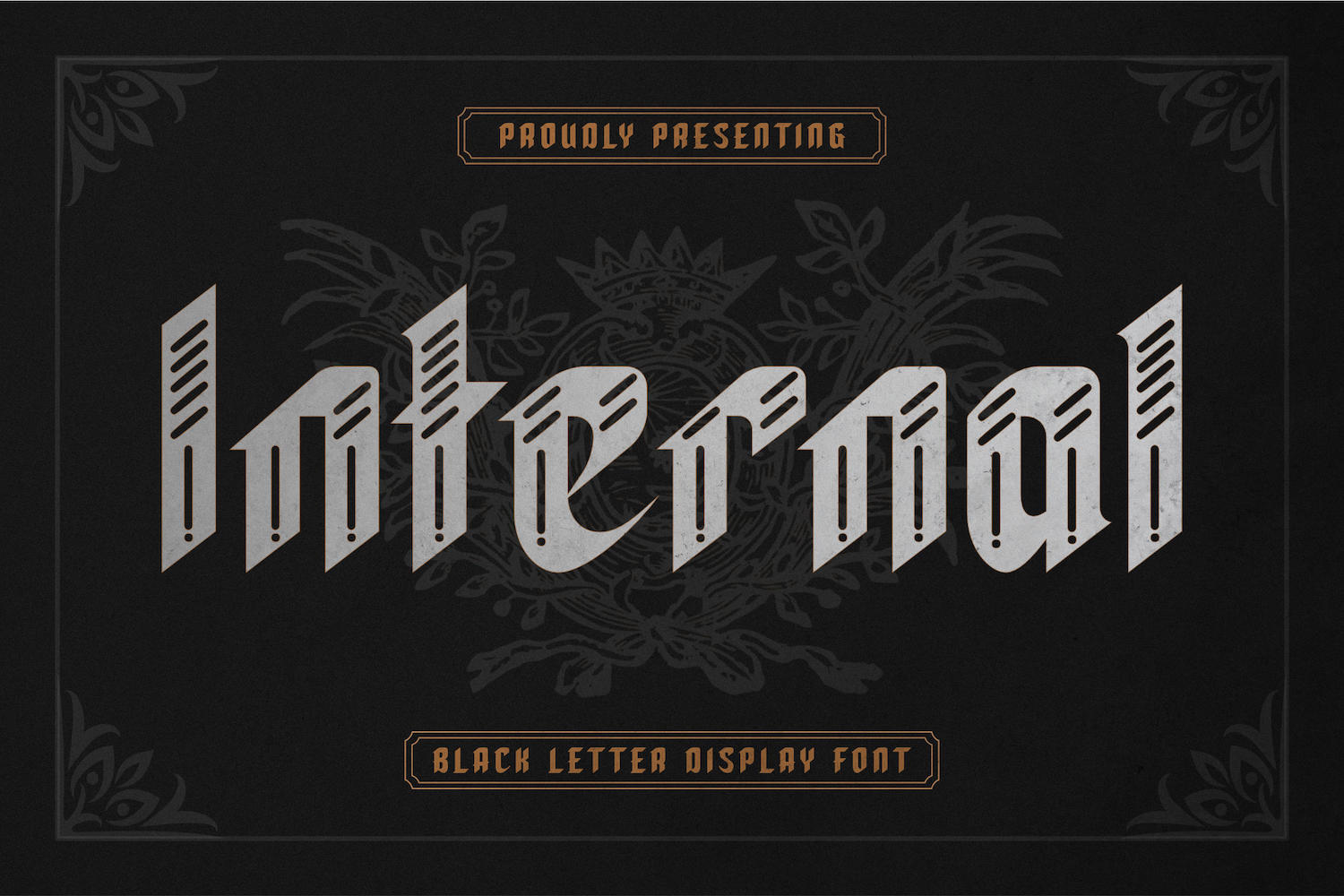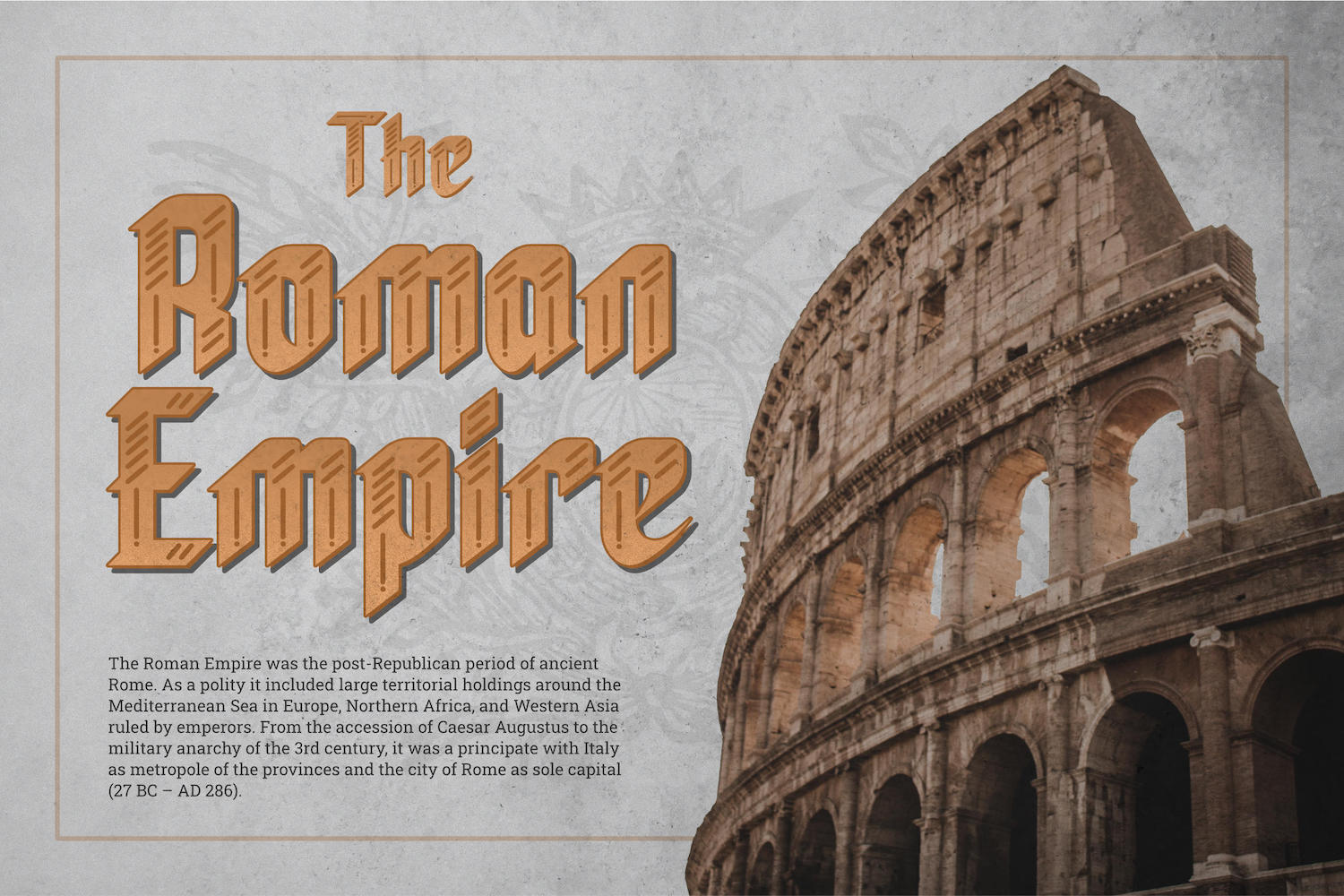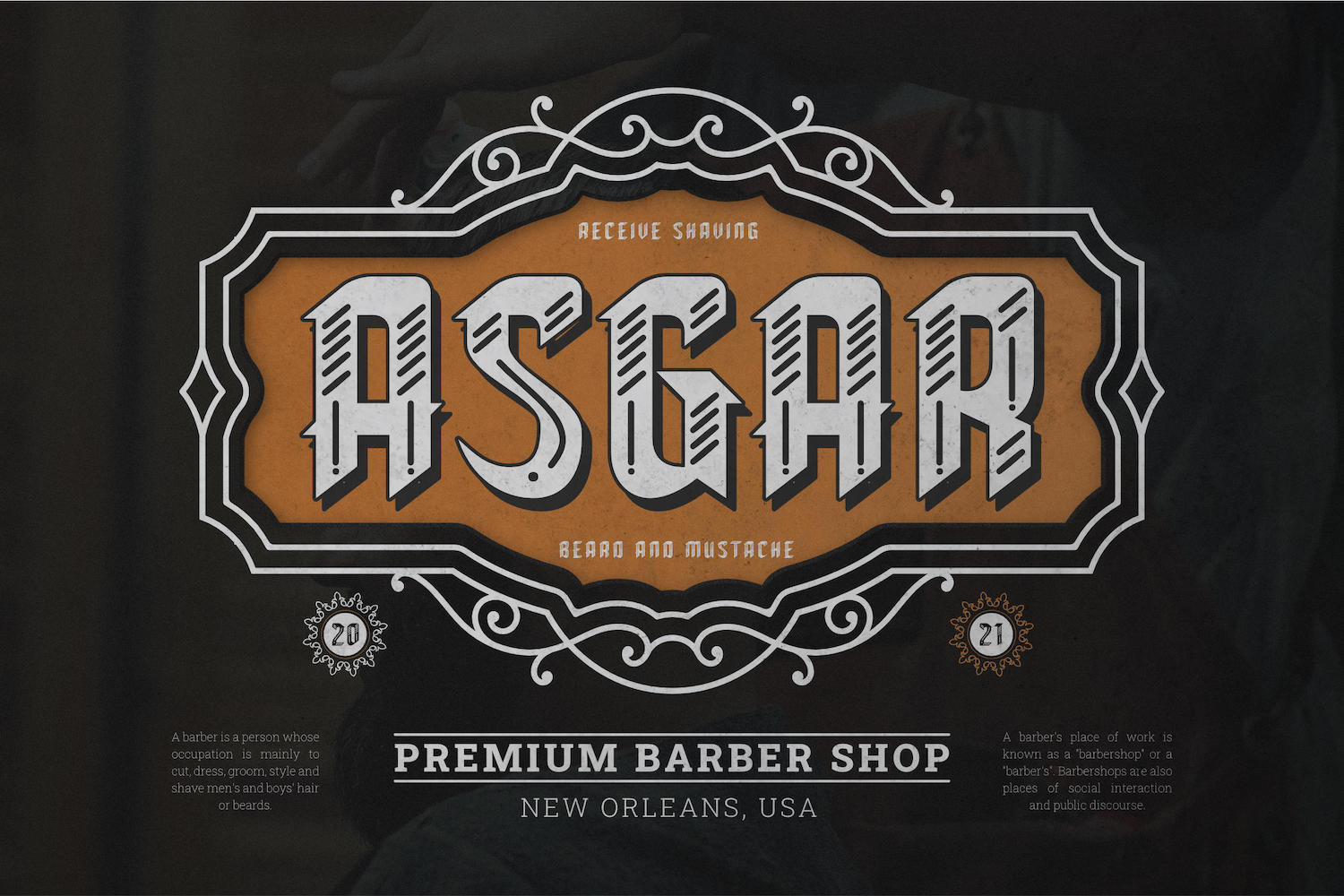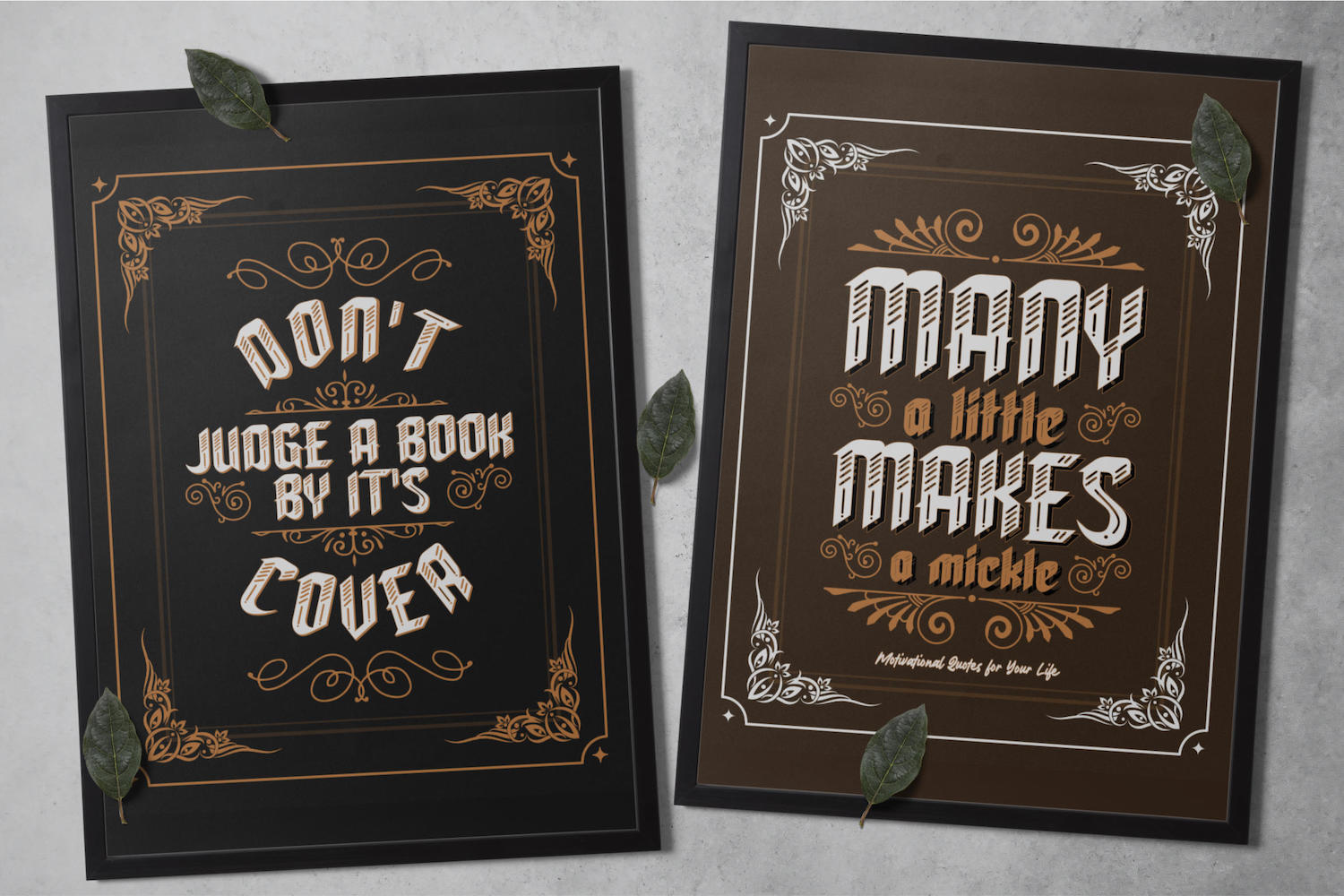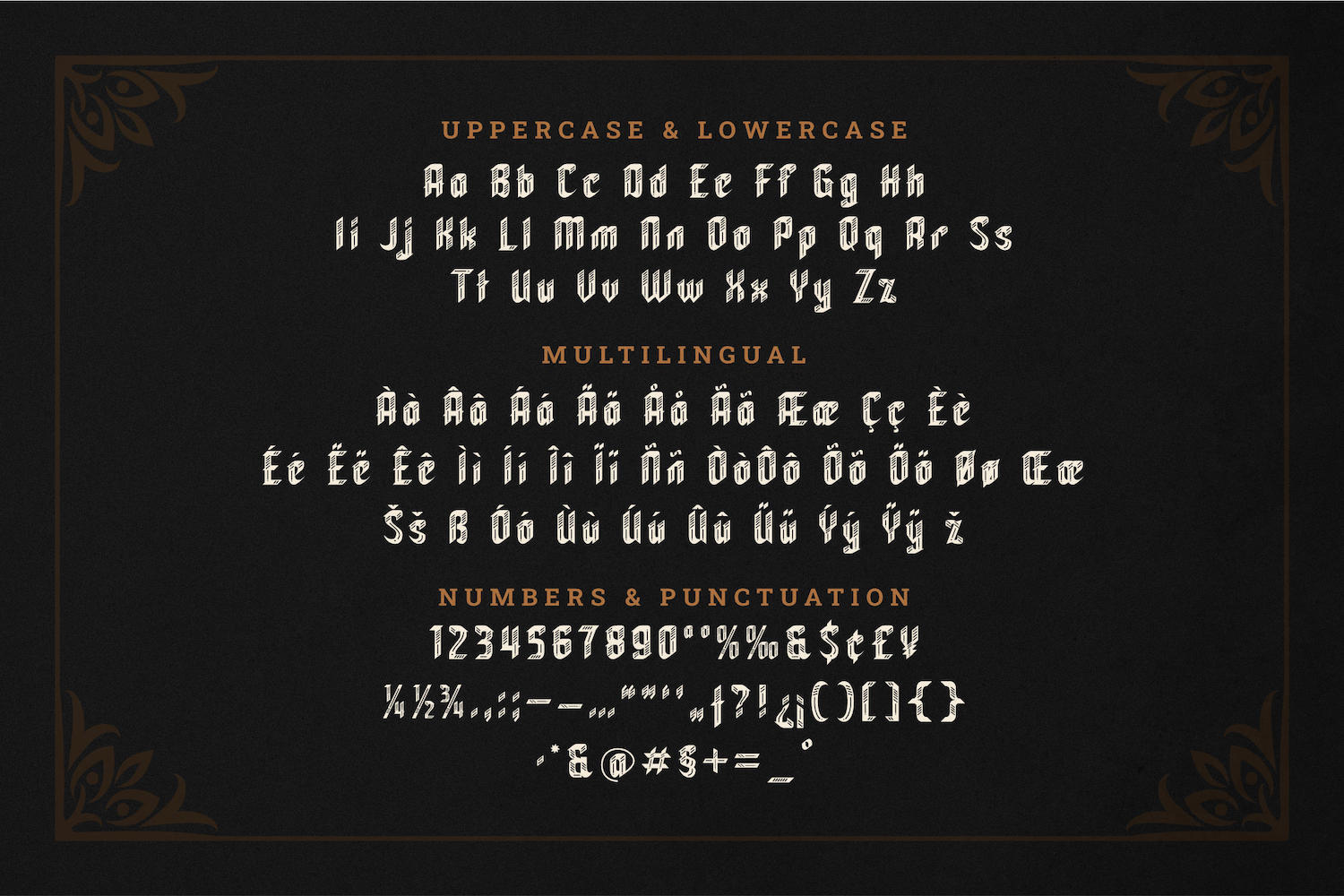
Internal
Internal is a bold and edgy blackletter display font inspired by medieval calligraphy and modern stencil aesthetics. The unique diagonal cutouts and solid, angular shapes give it a distinctive industrial-meets-gothic character that stands out in both vintage and contemporary design contexts. Ideal for headlines, tattoos, posters, and branding projects that need a strong visual presence, Internal delivers a sense of grit and authority.
With full uppercase and lowercase letters, multilingual support, numerals, and punctuation, this font is ready to power up any design project. Whether you’re crafting a barbershop brand, a historical theme, or a streetwear label, Internal brings a raw, handcrafted personality that commands attention and respect.